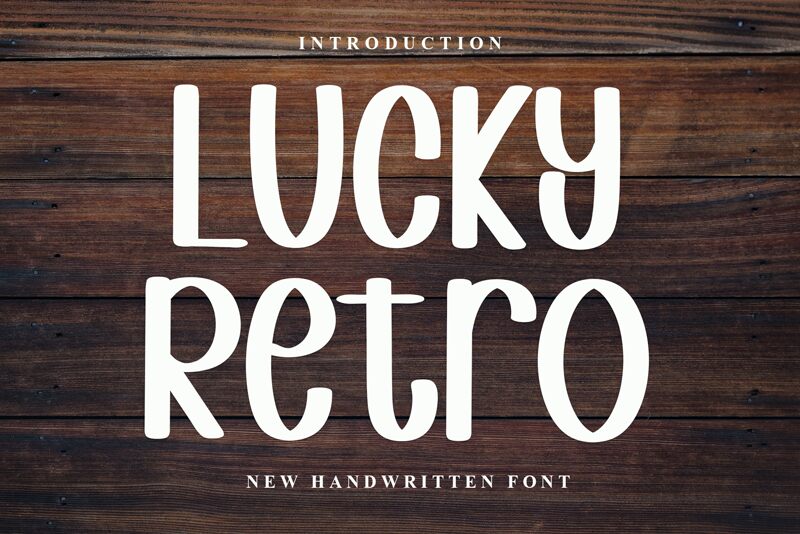
Lucky Retro font designed by PiPi Creative STUDIO is exactly the dose of old-school nostalgia you’ve been waiting for. Both whimsical and cheerful, Lucky Retro carries casual handwritten energy with finesse and appeal, enough to brighten up the most mundane of projects. It is inviting and approachable, best suited for a younger audience. Its decorative style which was particularly prominent in the ’60s and ’70s seeks inspiration from the past, and now gives you a flirting chance at the decorative, retro style with this font.
Use Lucky Retro for trifold menus, logos, brand and merchandise of retail businesses, signage, creative posters, and social media in the form of cover images or stories, and book or magazine covers of a certain theme. Create unique packaging designs, t-shirts, and typography art projects to immortalize your favorite quotes. Icon design is another option if and when combined with different fonts.